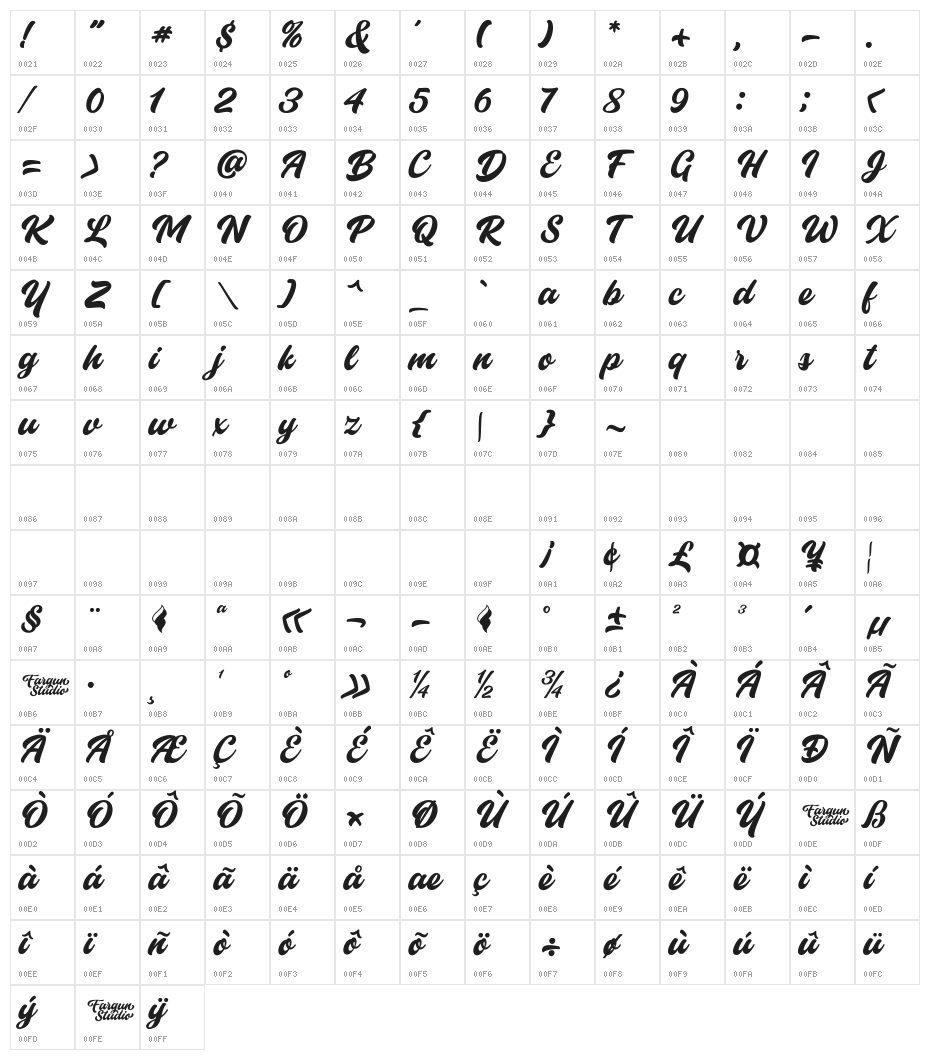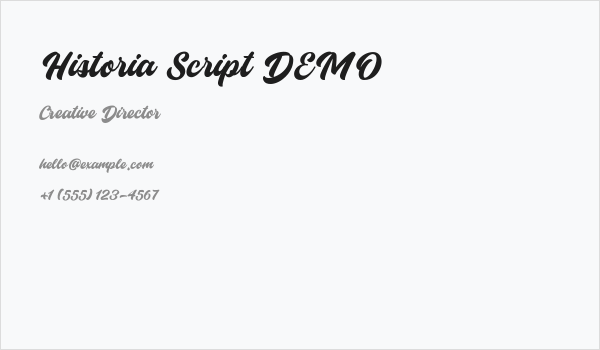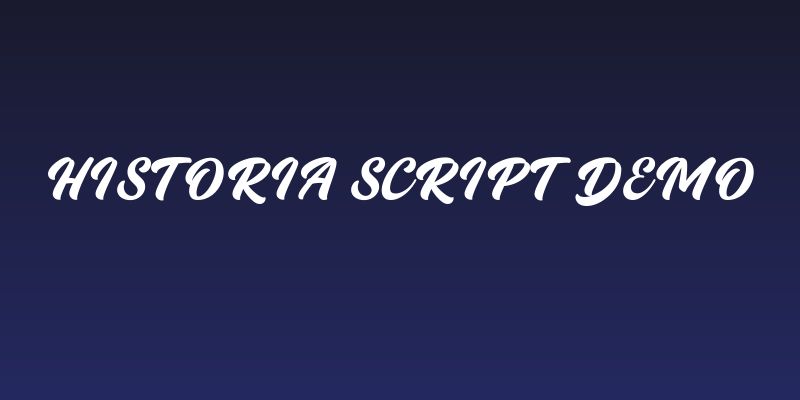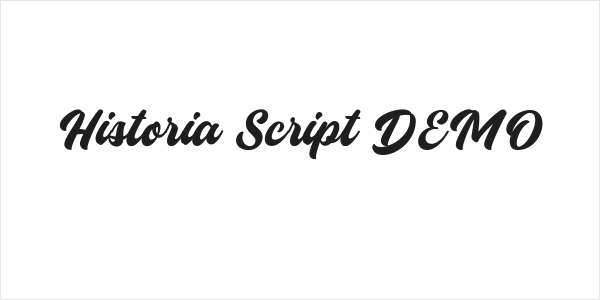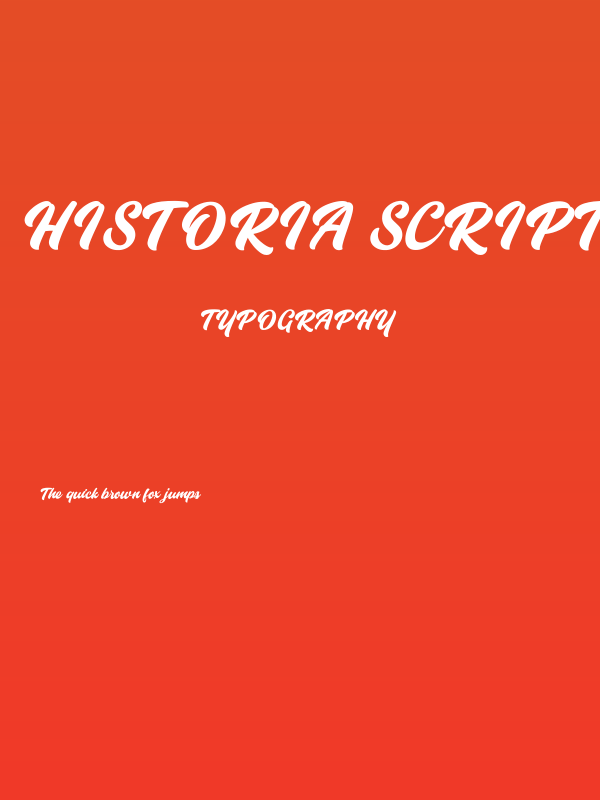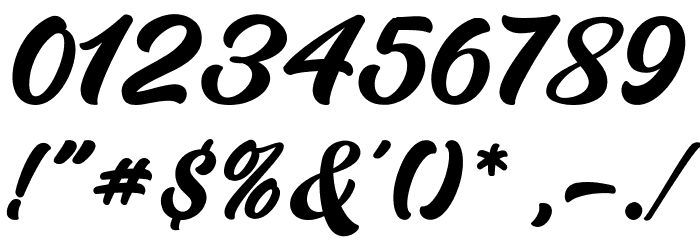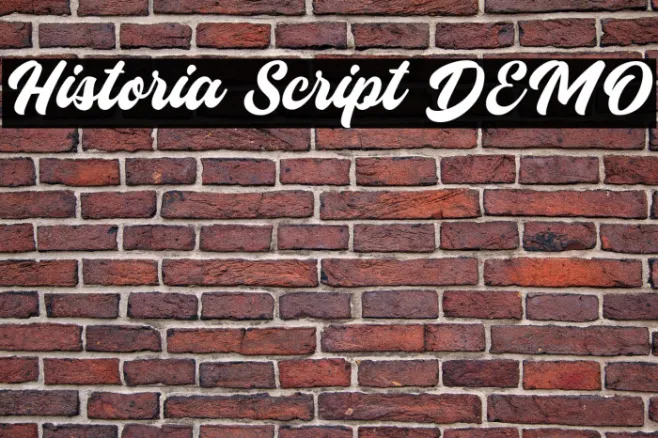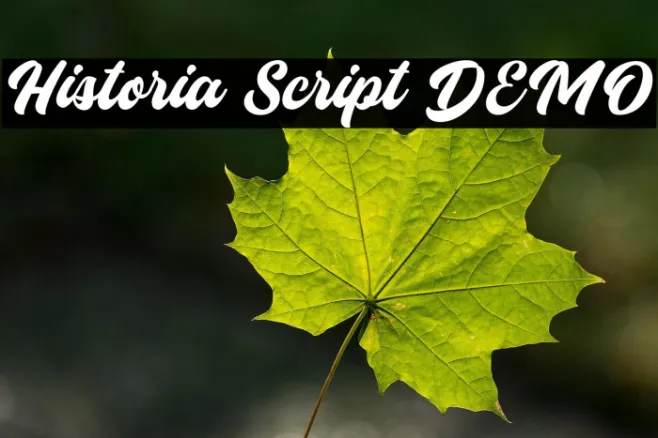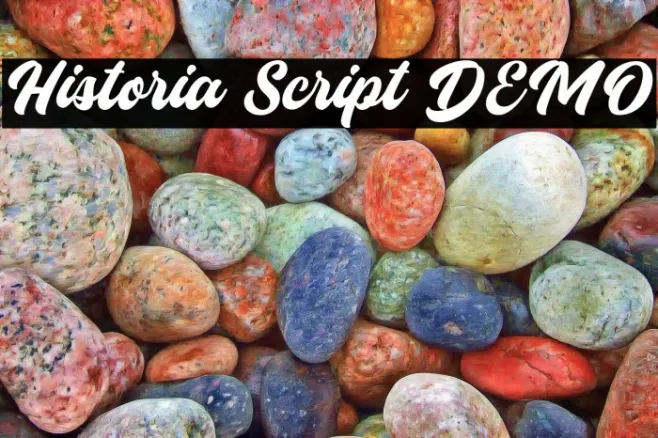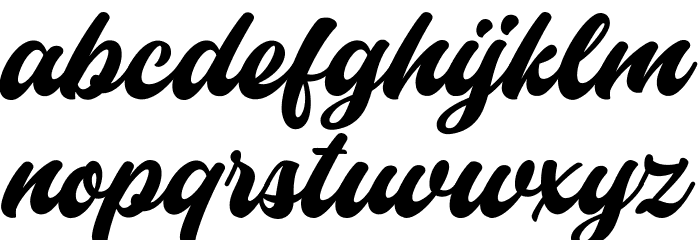
Historia Script DEMO Font
Historia Script DEMO Description
This font exhibits a bold and flowing script style, characterized by its smooth, connected strokes and elegant curves. The uppercase letters are prominent and slightly slanted, giving a sense of motion and fluidity. The lowercase letters maintain a consistent flow, with some characters featuring loops and flourishes that enhance its decorative appeal. The numerals are rounded and maintain the same boldness as the alphabet, ensuring readability. Special characters are designed to match the overall style, with a cohesive look that complements the script nature. This font is ideal for projects that require a touch of elegance and sophistication.